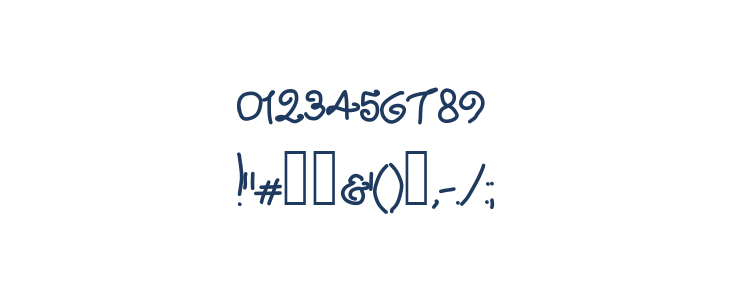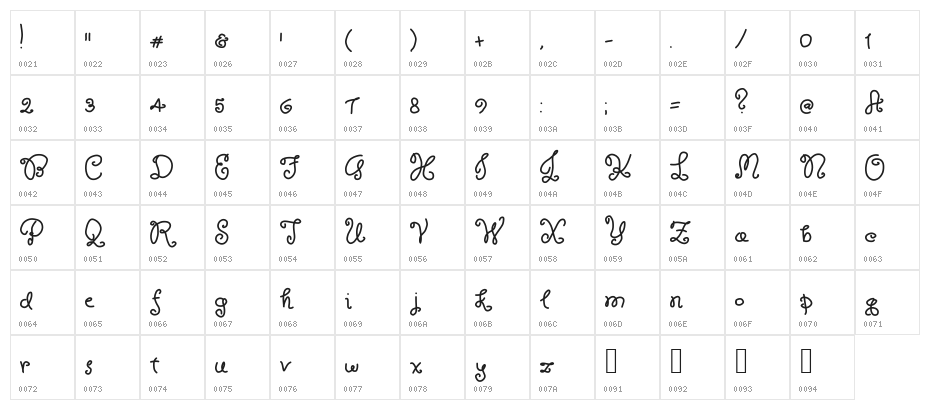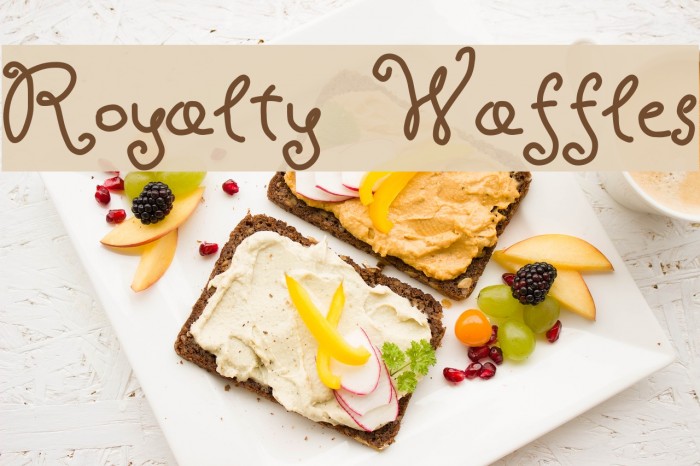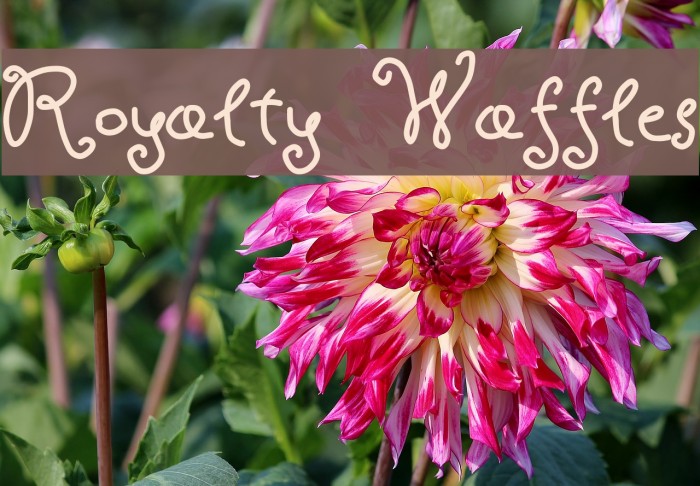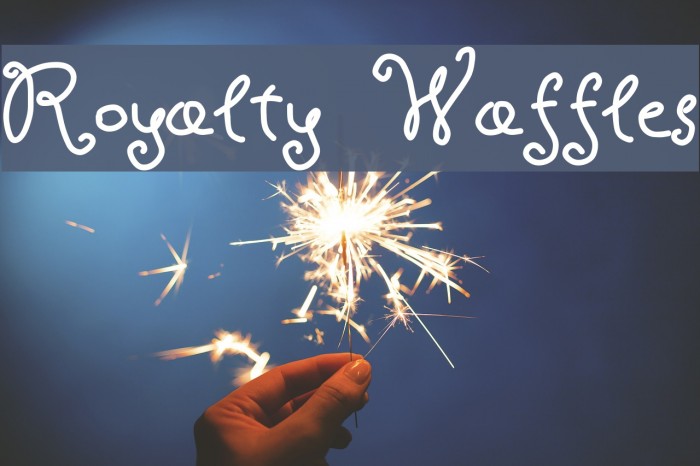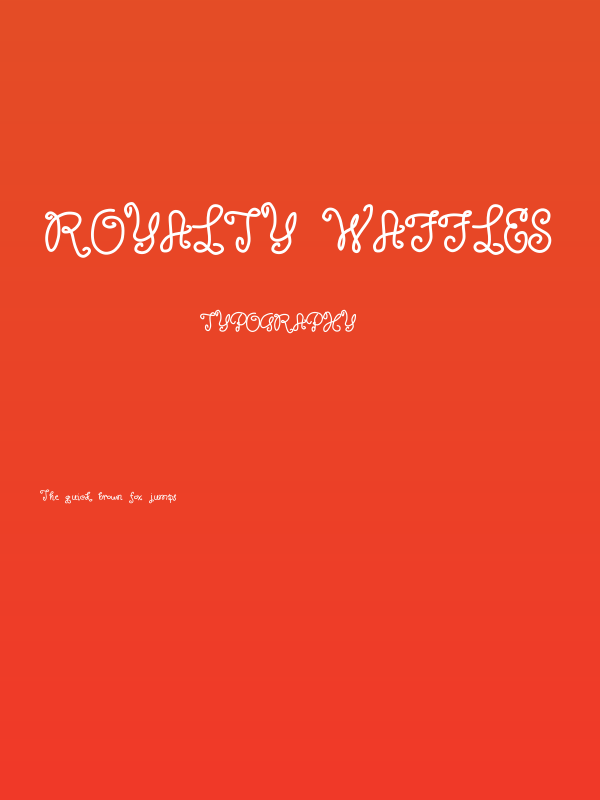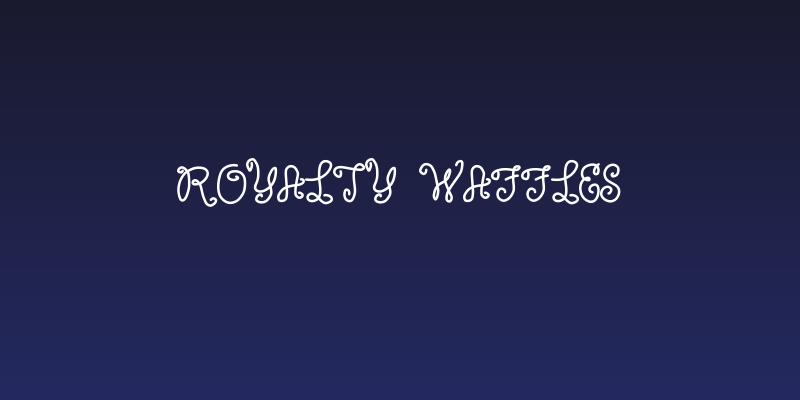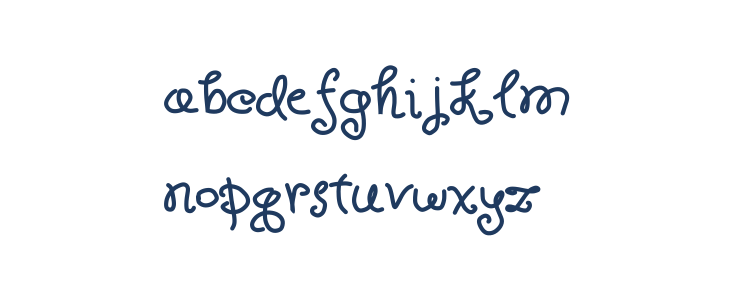
Royalty Waffles Font
Royalty Waffles Description
This font features an ornate and whimsical design, characterized by its playful loops and curls that give each letter a unique and decorative appearance. The uppercase letters are particularly elaborate, with intricate swirls that add a touch of elegance and flair. The lowercase letters maintain a consistent style, offering a harmonious blend of creativity and readability. Numbers and special characters are designed to match the overall aesthetic, ensuring a cohesive look across all text elements. This font's distinctive style makes it ideal for projects that require a touch of personality and artistic expression.